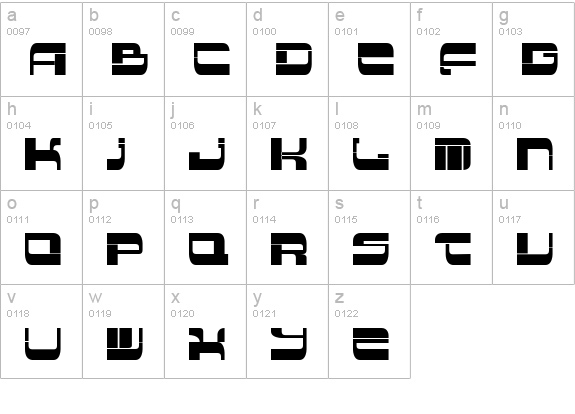
Insert 2 Font Details
Insert 2 is a modern and stylish font that will add a touch of creativity to any project. This unique font features clean lines and elegant curves, making it perfect for both digital and print designs. With its versatile nature, Insert 2 is suitable for various applications such as logos, headlines, posters, and even social media graphics. One of the most appealing aspects of Insert 2 is that it is available for free download at FontsMarket.com. This means that you can enjoy the benefits of this exceptional font without having to worry about any additional costs. Whether you are a professional designer or a hobbyist, having access to high-quality fonts like Insert 2 can significantly enhance your creative projects. The versatility of Insert 2 extends to its character set, which includes uppercase and lowercase letters, numbers, punctuation marks, and special characters. This comprehensive range allows you to create visually stunning compositions that truly stand out. The font's legibility and readability make it suitable for both large and small text sizes, ensuring that your message is clearly conveyed. Insert 2's sleek and modern design is perfect for projects that require a contemporary and trendy aesthetic. Its clean lines and elegant curves give it a sense of sophistication, making it a popular choice among designers who want to make a lasting impression. Whether you are designing a brand identity or creating a striking poster, Insert 2 is a font that will elevate your work to the next level. In conclusion, Insert 2 is a must-have font for anyone looking to add a touch of creativity and modernity to their designs. With its free availability for download at FontsMarket.com, you can easily access this exceptional font without any hassle. So why wait? Start exploring the endless possibilities that Insert 2 offers and elevate your design projects to new heights.